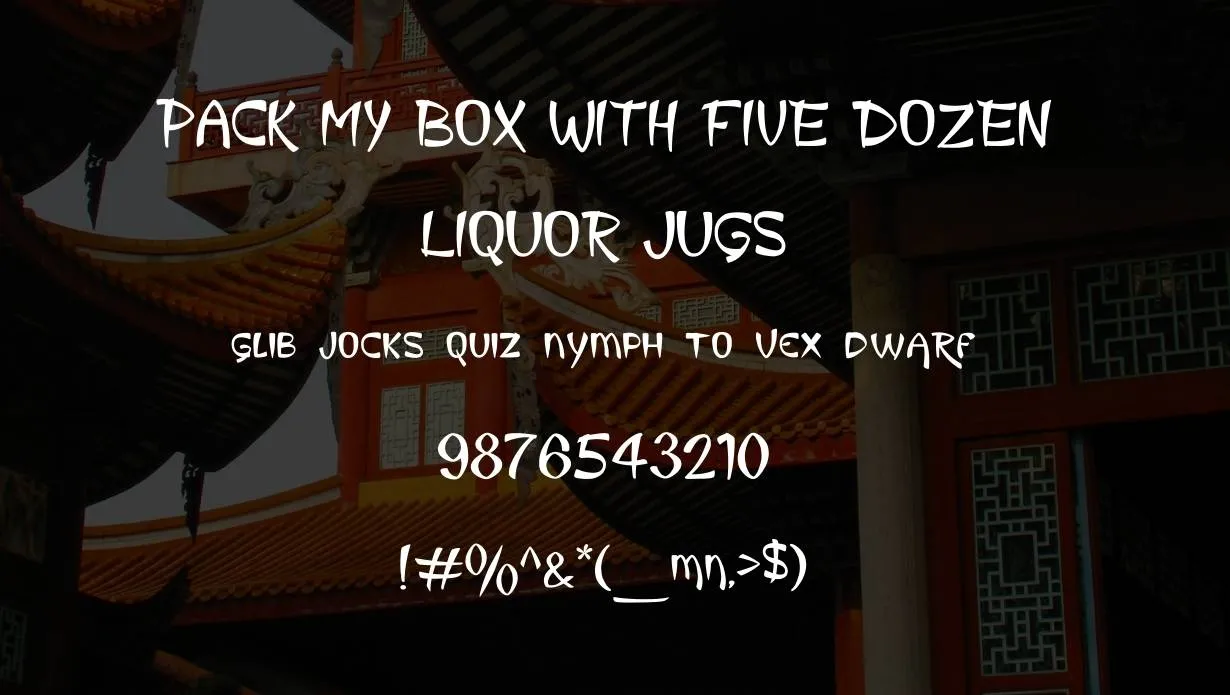
King Luau Font is a font that was created by King Luau. It is an ornamental typeface inspired by Hawaiian culture. The font consists of uppercase and lowercase letters, as well as numbers and symbols. This Font is perfect for headlines, logos, branding, and other creative projects.
King Luau typeface was inspired by the Hawaiian culture. The font consists of uppercase and lowercase letters, as well as numbers and symbols. This Font is perfect for headlines, logos, branding, and other creative projects.
King Luau Font can be used for headlines, logos, branding, and other creative projects. The font is available in both TTF and OTF formats. This Font is perfect for headlines, logos, branding, and other creative projects. If you are looking for a unique and stylish font for your next project, then King Luau typeface is a great choice.
This font is also perfect for wedding invitations, Greeting cards, Print ads, Web design, Logos, Headlines, and much more.
The font was created by King Luau, who is a graphic designer from Hawaii. He has been designing fonts for over 10 years and has created many other free fonts that are available for download on his website.
King Luau Font Family Appearance
| Designer | King Luau |
| Style | Fancy |
Is King Luau a good typeface?
Yes, This Font is a good font. The reason behind this is that it is an ornamental typeface inspired by Hawaiian culture. It has a unique and stylish design that makes it perfect for headlines, logos, branding, and other creative projects.